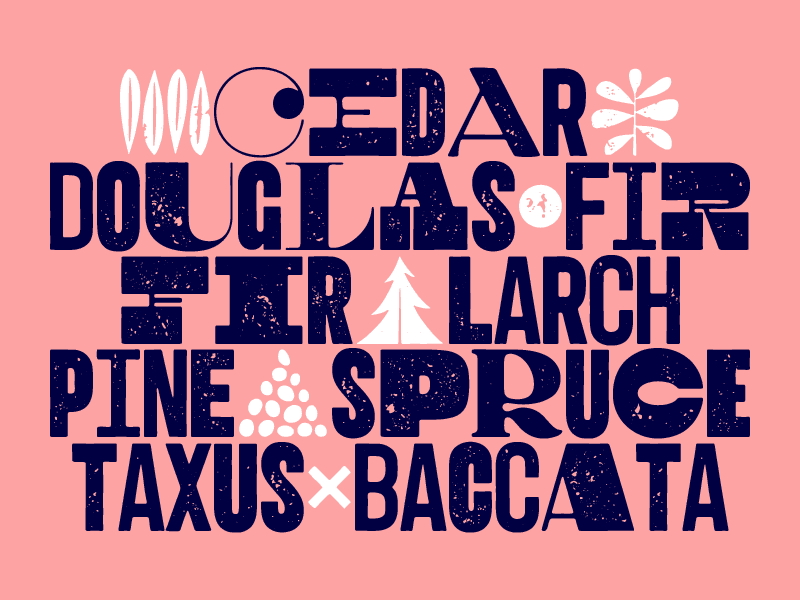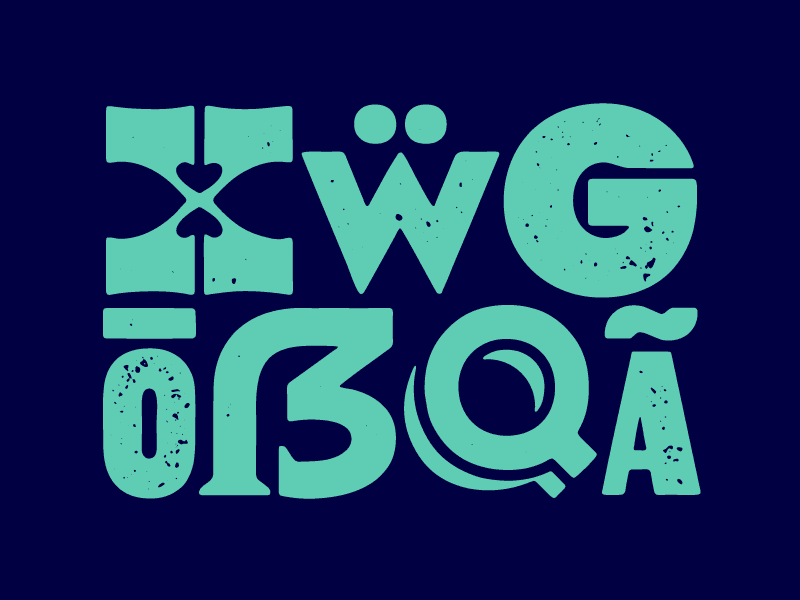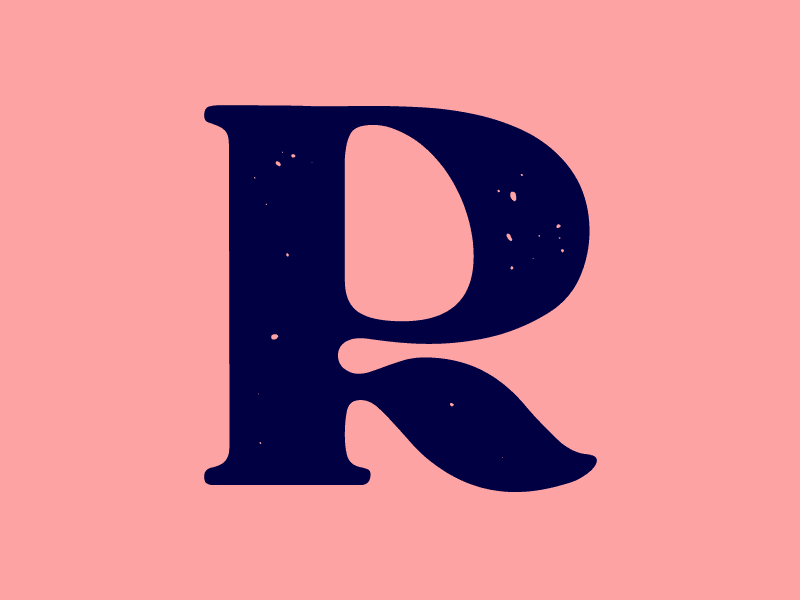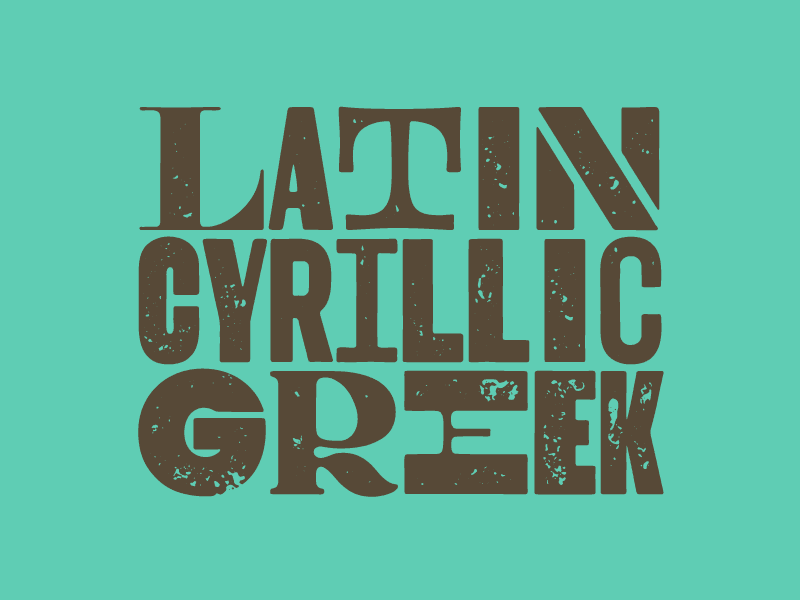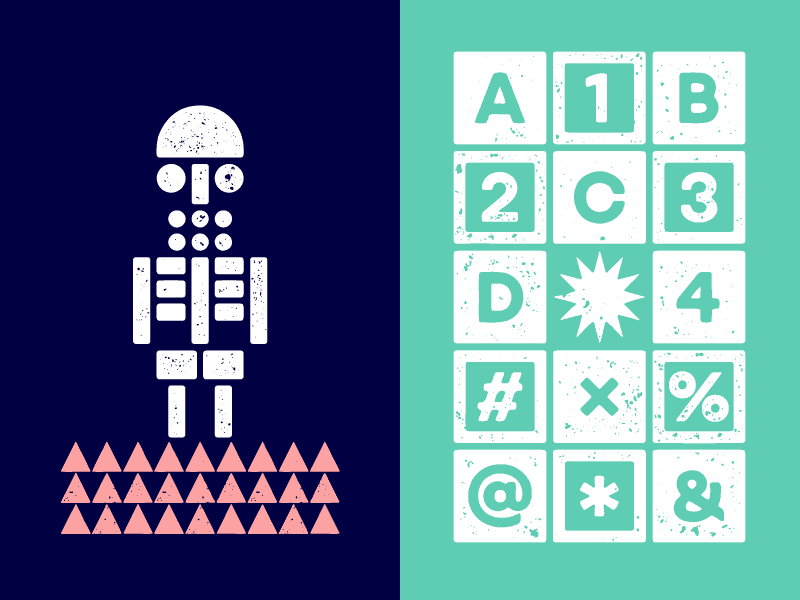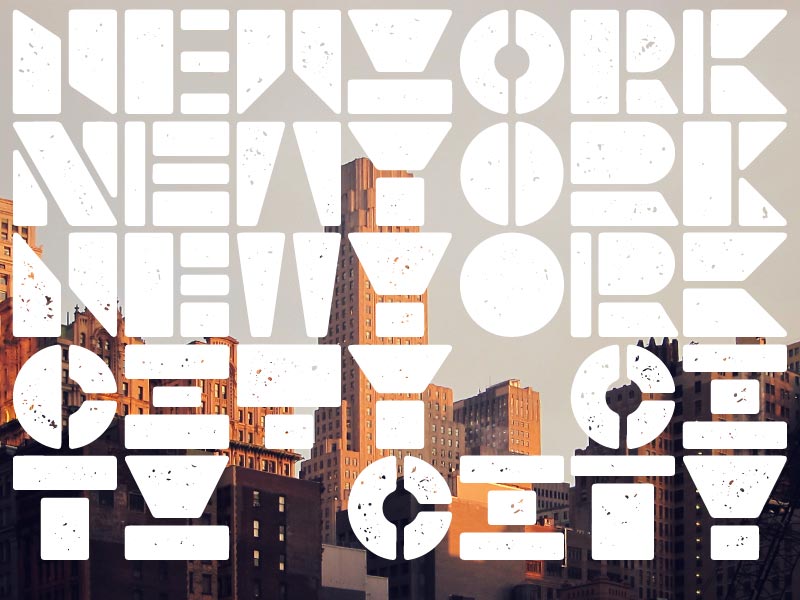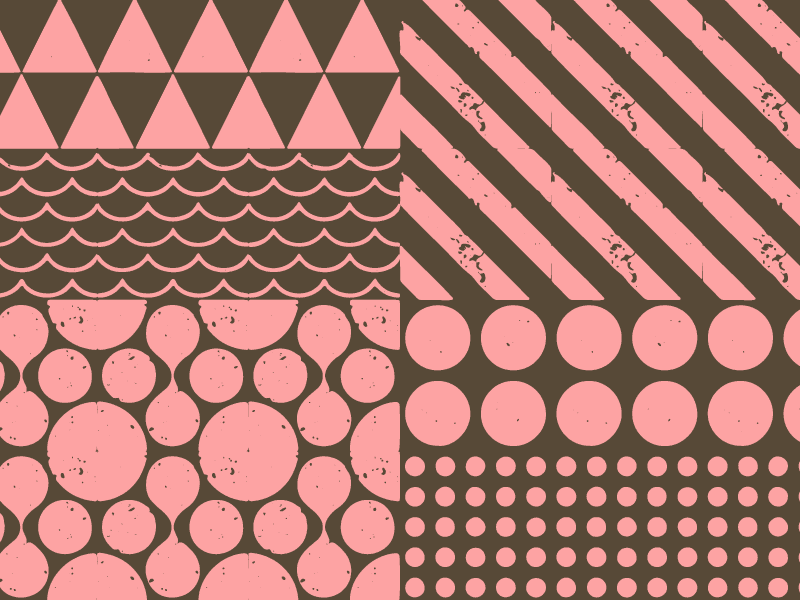
Type system inspired by wood type and letterpress.
Woodkit Print is a caps-only, decorative, experimental constructed typeface primarily intended for display use consisting of 6 styles.
Woodkit Print supports Basic Latin, Extended Latin, Cyrillic, and Greek and covers over 109 languages. With total of 1150 glyphs, it includes the default set of tabular lining figures along with proportional lining figures and proportional oldstyle figures for advanced numerical setting. Additional features like standard ligatures, discretionary ligatures, and contextual alternates allow for further customization and versatility.
Woodkit is a type system inspired by wood type and letterpress consisting of three families — Solid, Print and Reprint, each with six distinct styles covering various alphabet designs, components and miscellaneous ornaments.
From both aesthetic and functional reasons, the most important feature of Woodkit is that every single glyph fills a square, not just horizontally, but also vertically. This is a reference and an homage to the physicality of the real life wooden blocks. It didn’t only induce some new and unexpected constructional solutions, it also gave the final font broad versatility, mutual interchangeability, many visual treats unavailable in proportional typefaces and most importantly — playfulness. Some of the fonts and shapes are outright inspired by wooden blocks and alphabets for kids. Therefore with Woodkit, typing also means building.